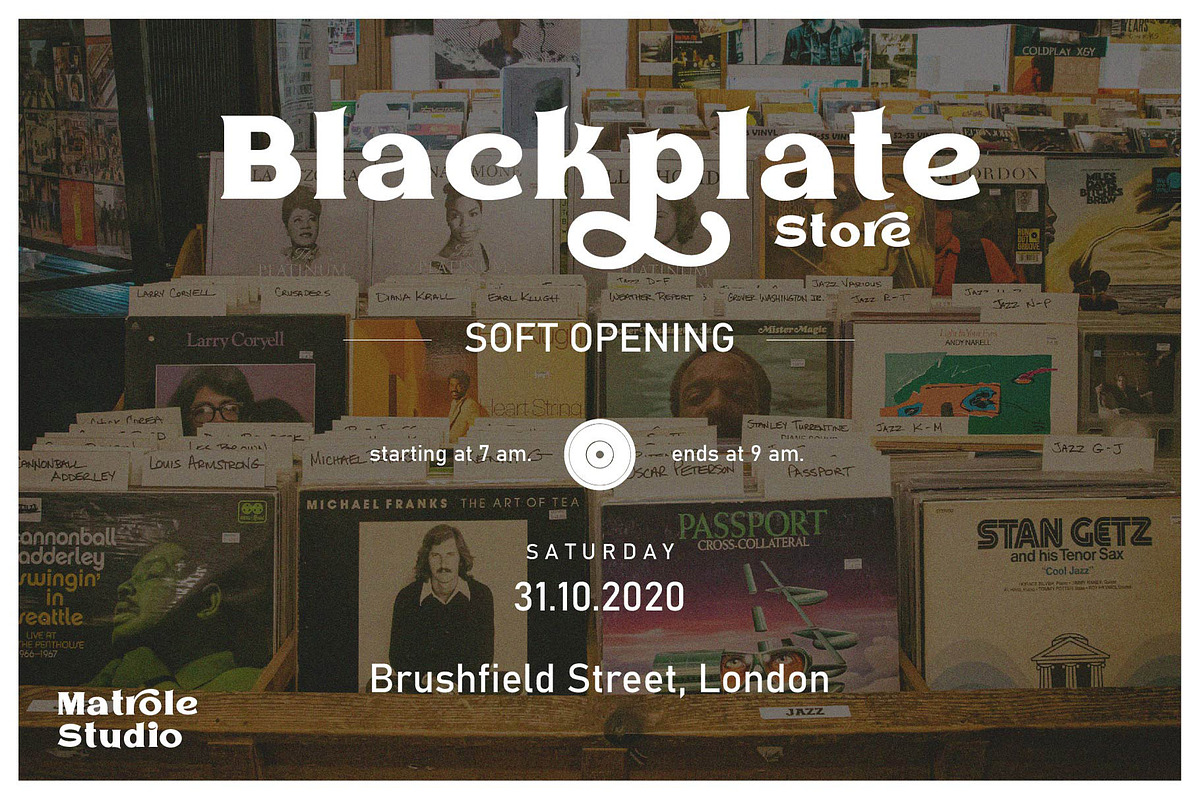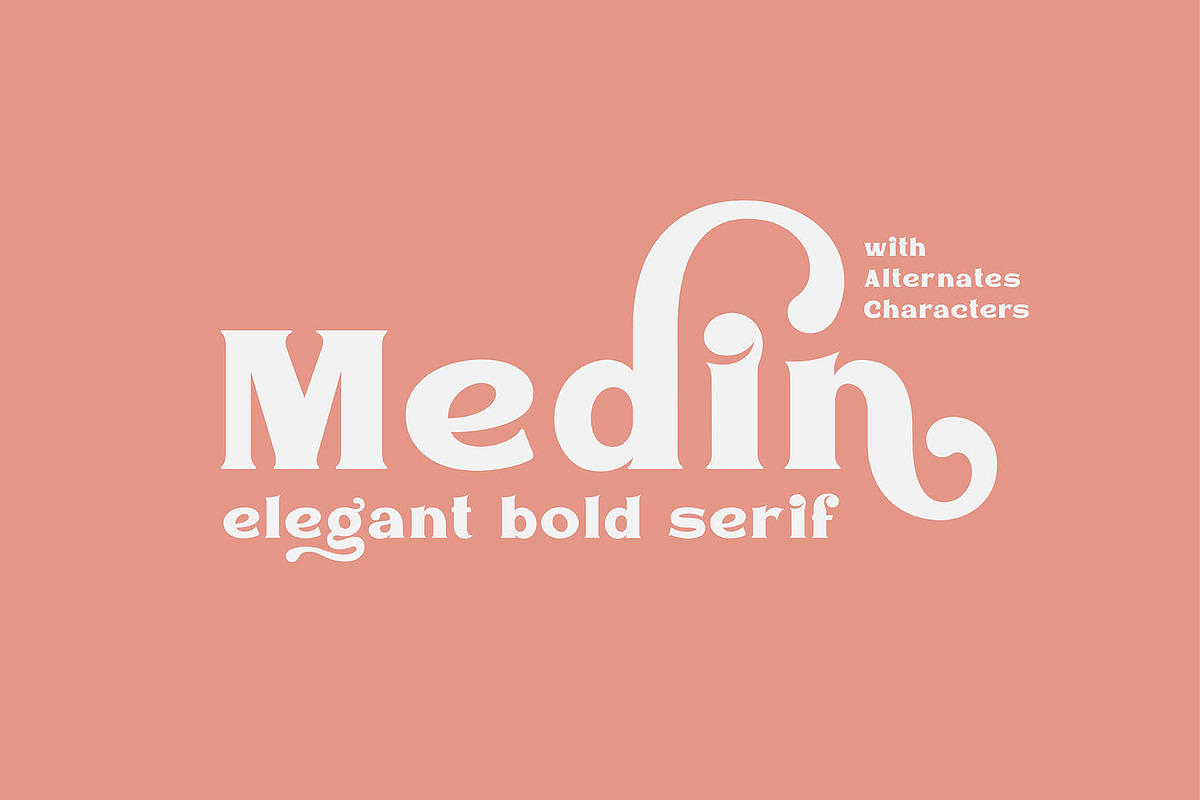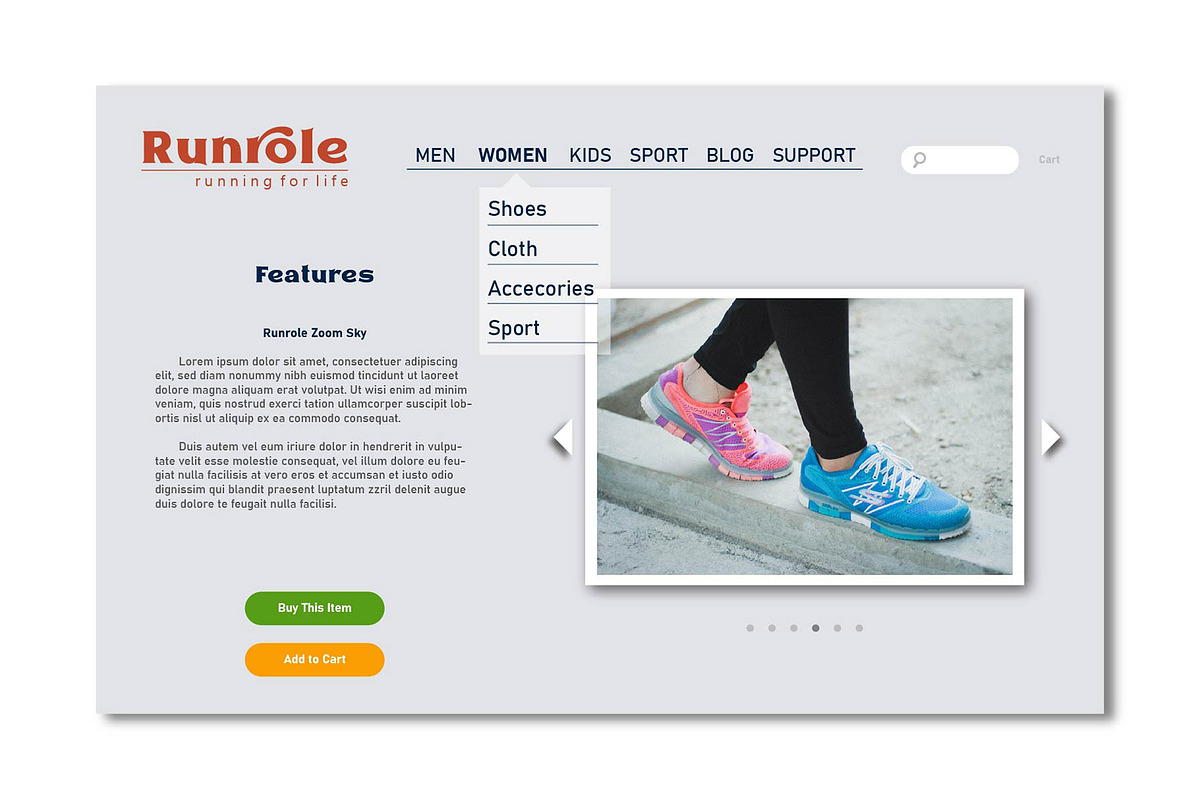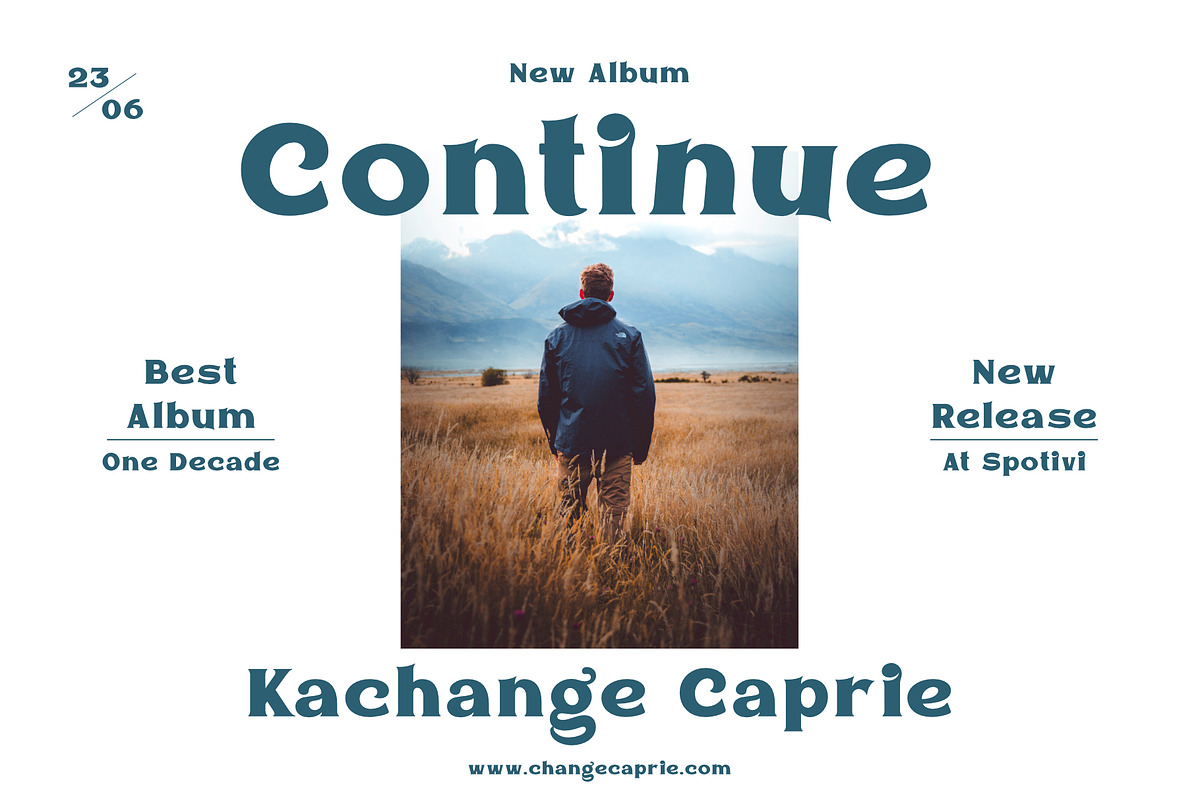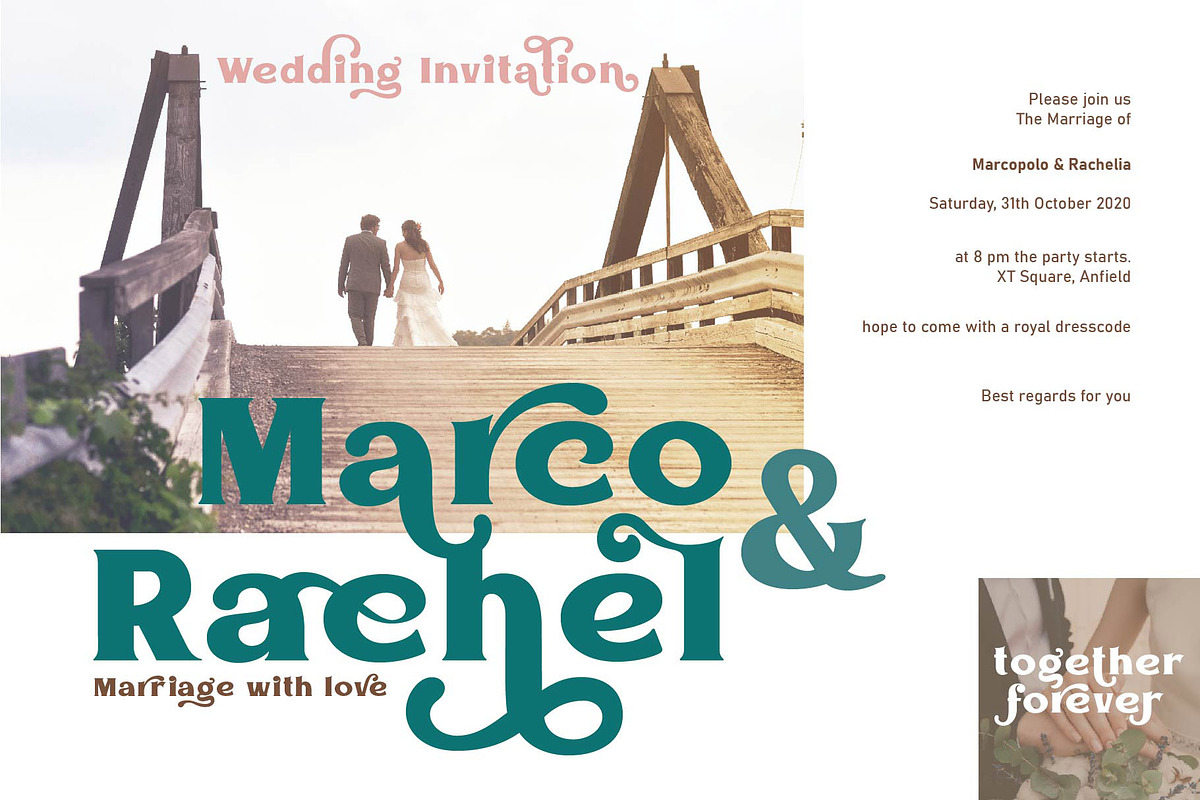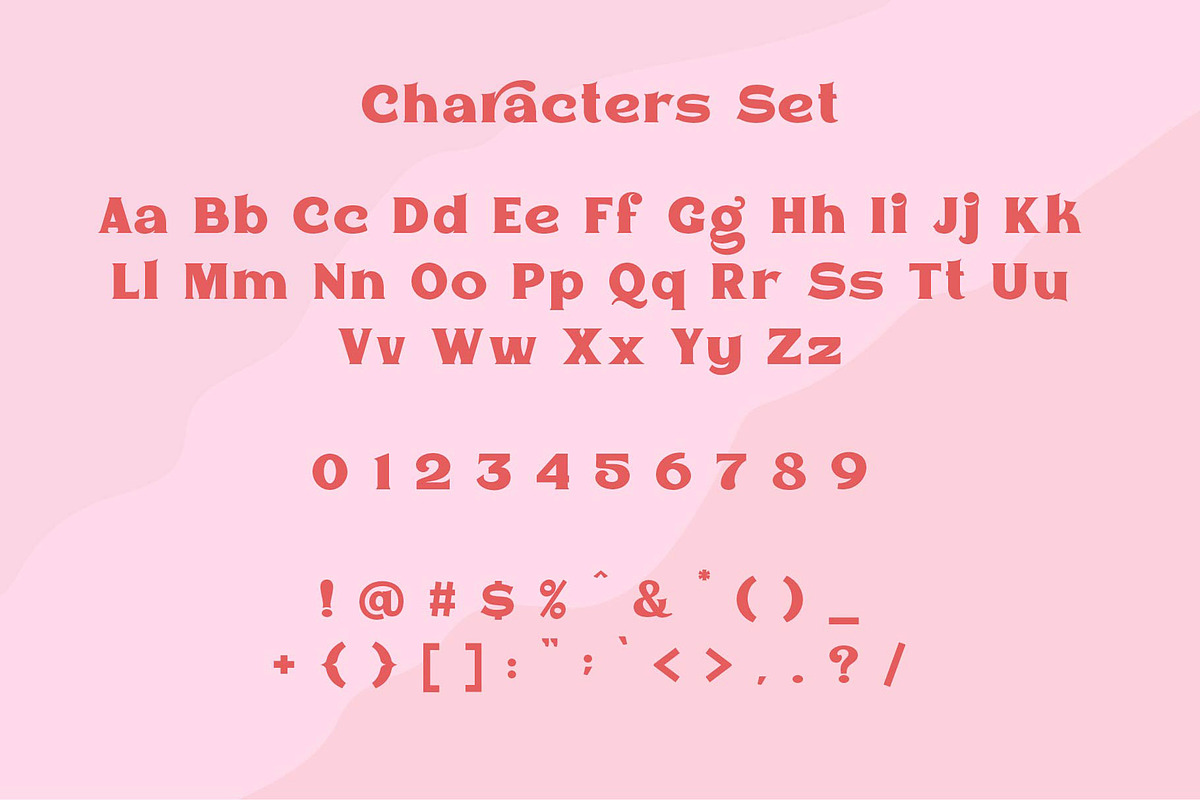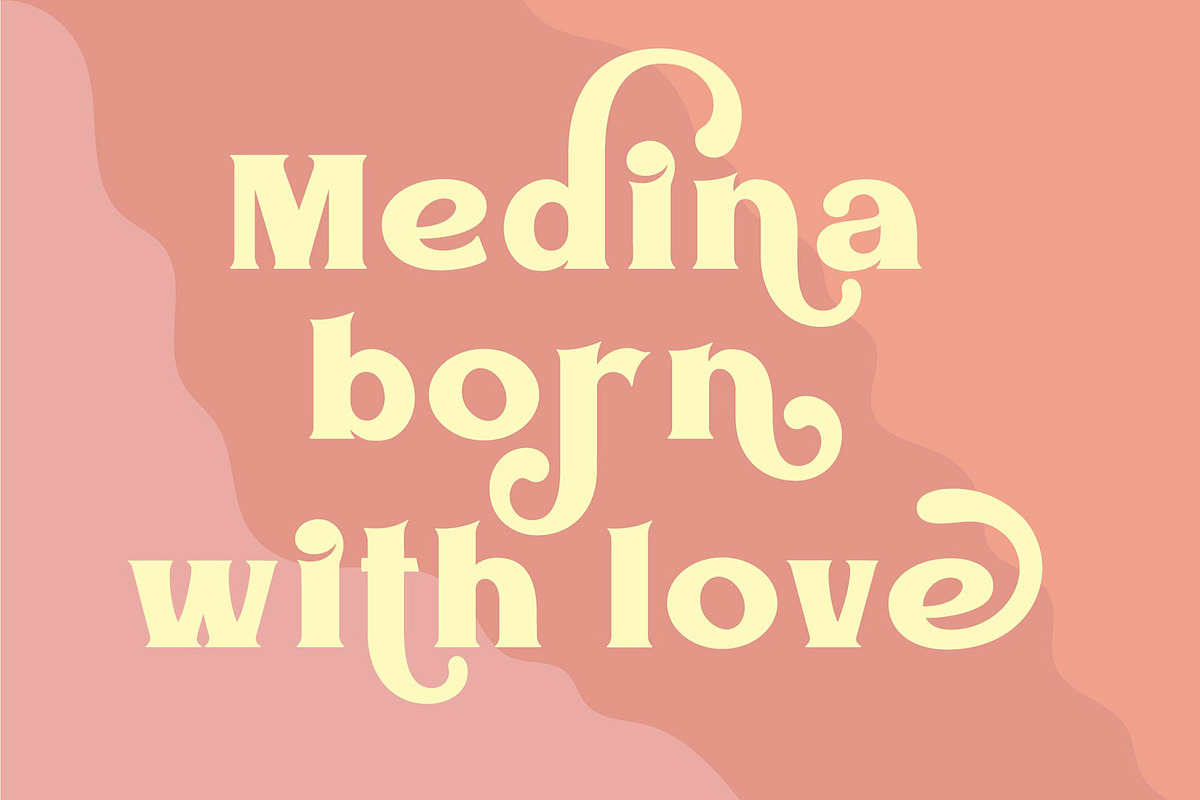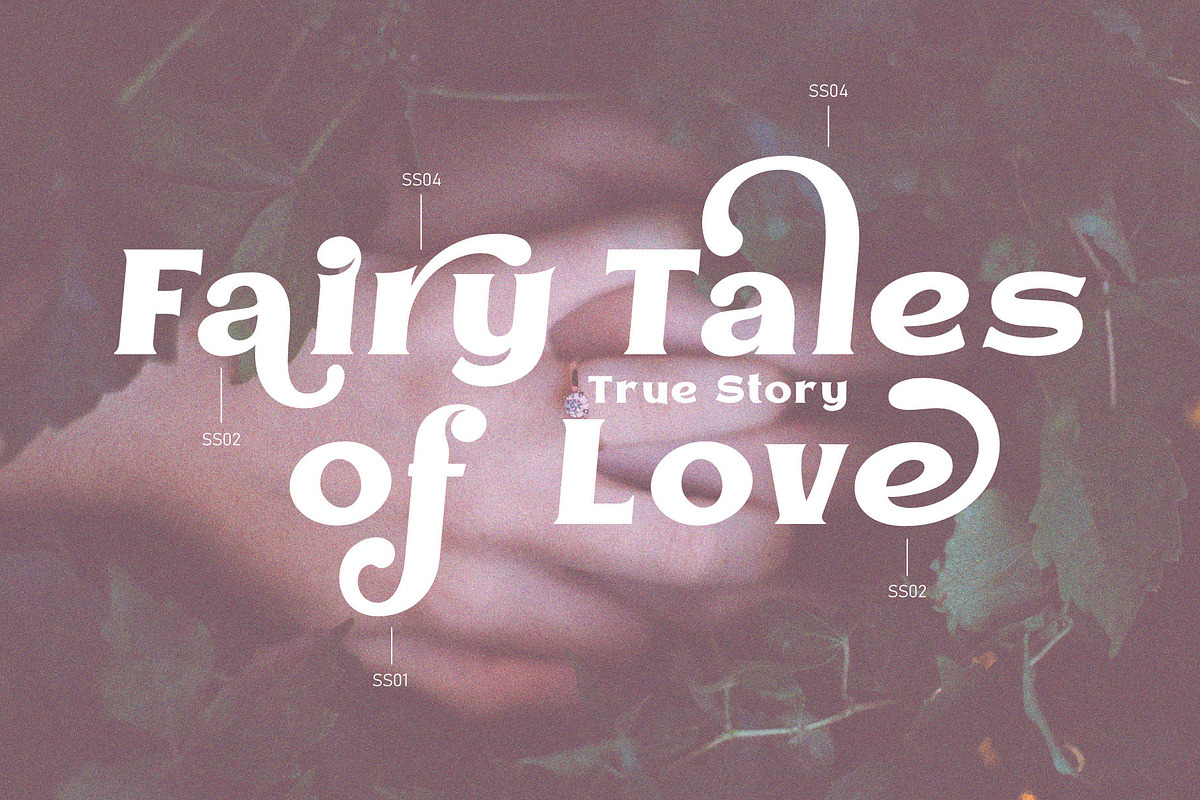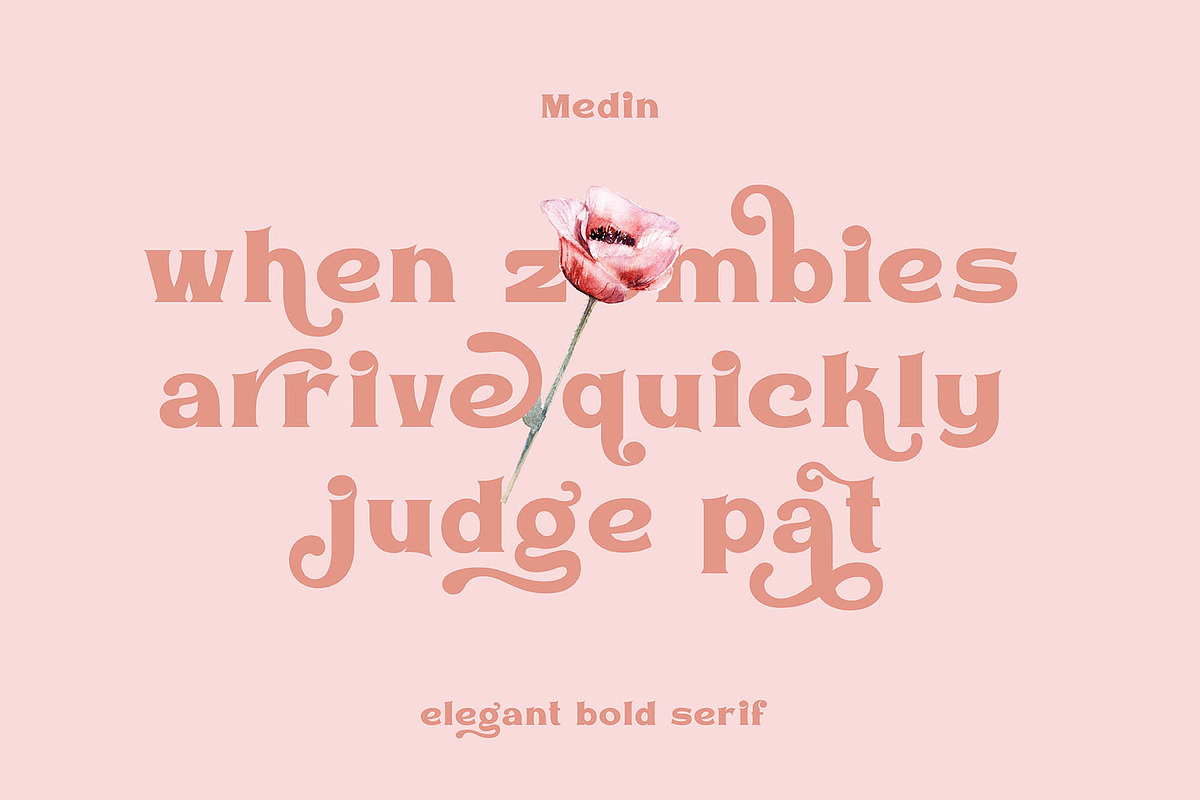
VT Medin - Elegant Bold Serif
Medin is a serif font with elegant characters. Medin is perfect for your elegant-themed work, suitable also for elegant vintage. This font is available multilingual & alternate characters, making it easy to do work on various design themes. Medin is equipped with multilingual accents.